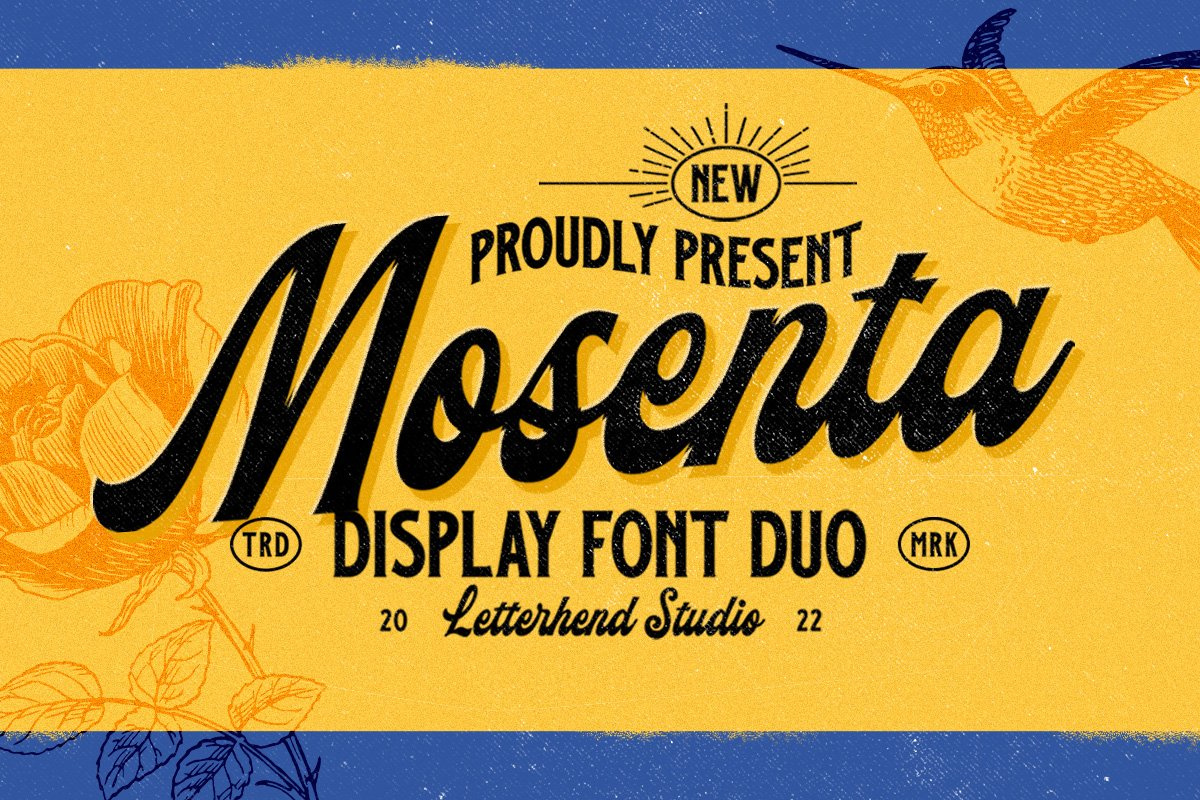
Mosenta - Display Font Duo
Mosenta is a versatile and classy script. This font perfectly made to be applied especially in logo, and the other various formal forms such as invitations, labels, logos, magazines, books, greeting / wedding cards, packaging, fashion, make up, stationery, novels, labels or any type of advertising purpose.
uppercase & lowercase
numbers and punctuation
multilingual
ligatures
alternates
swashes - PUA encoded